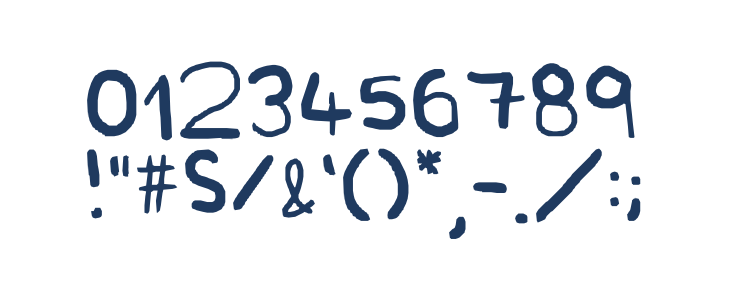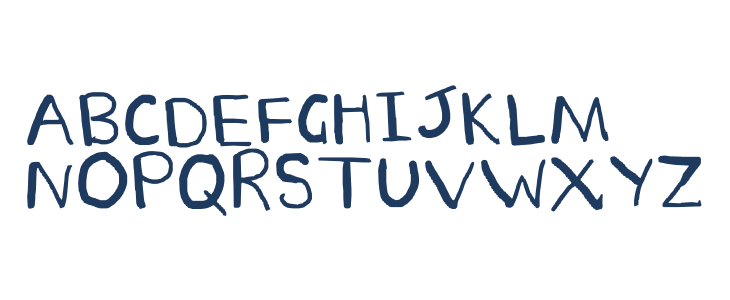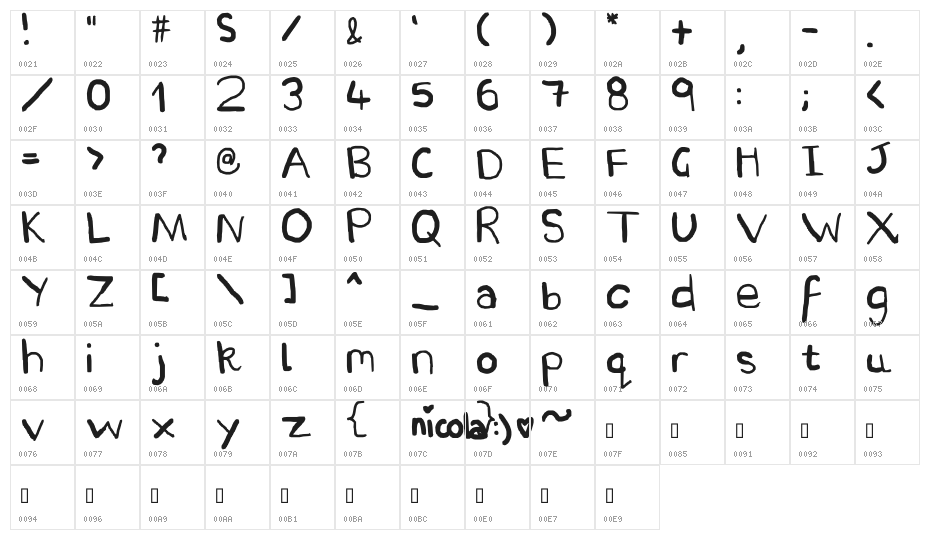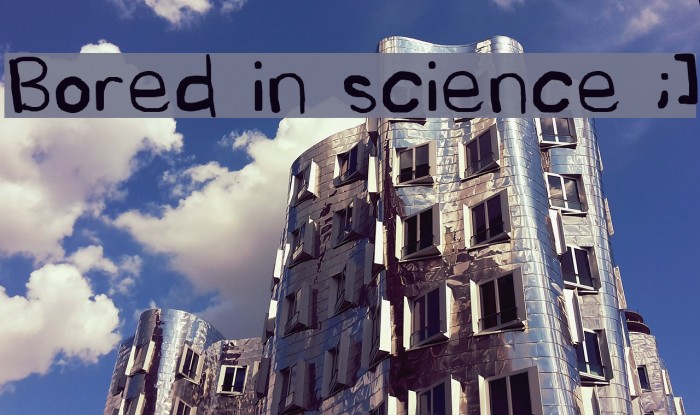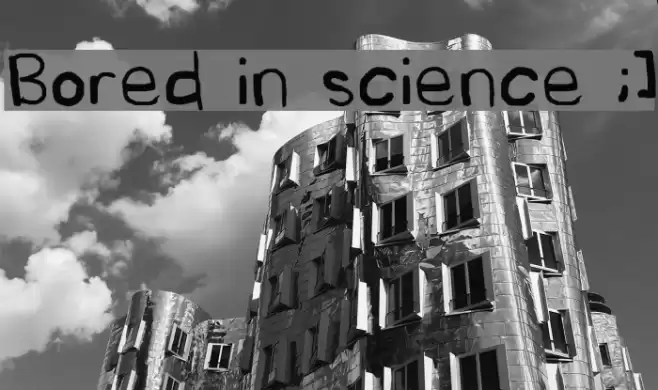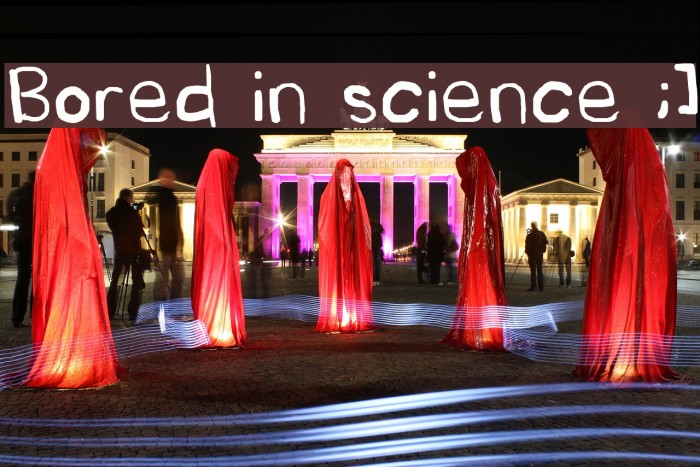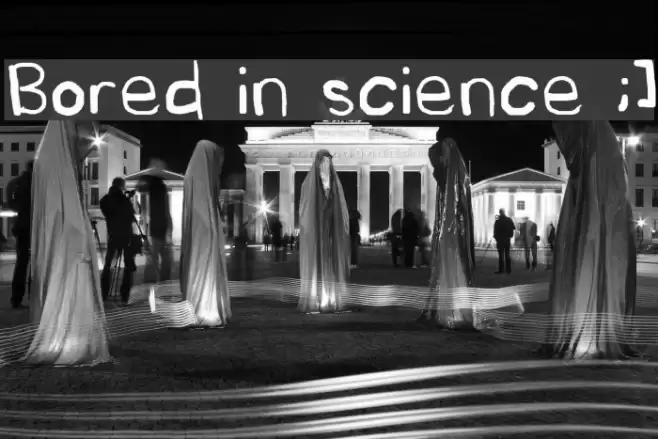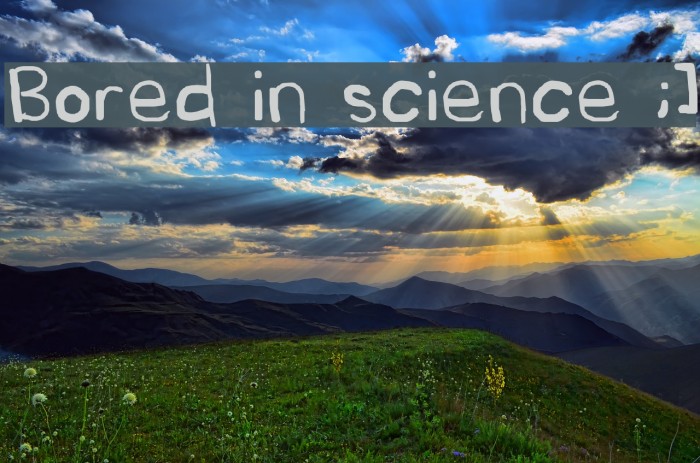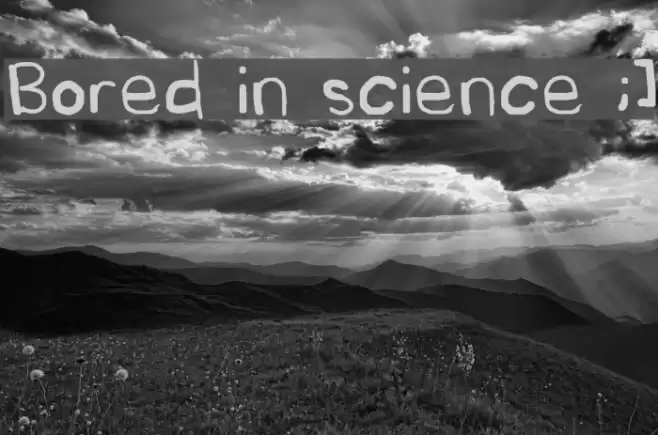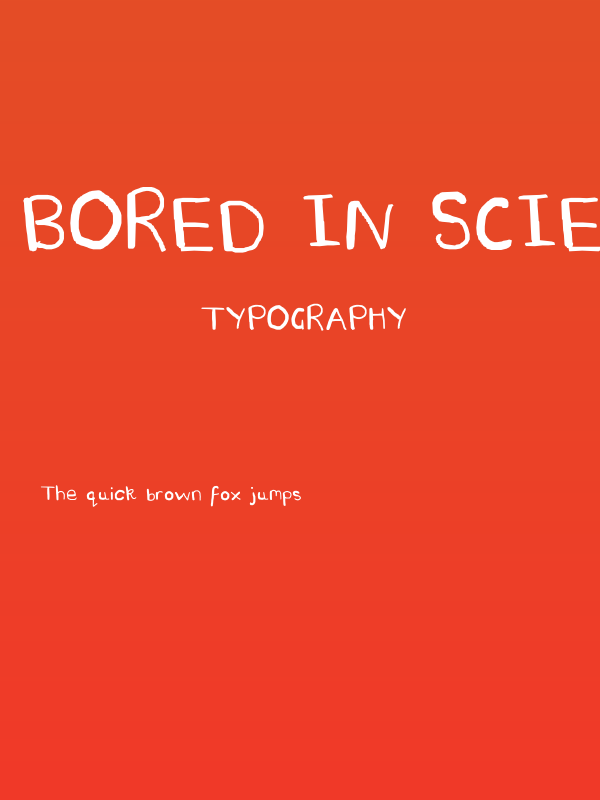
Bored in science ;] Font
Bored in science ;] Description
This playful and quirky font features a hand-drawn style with uneven lines and a casual appearance. The characters have a whimsical and informal feel, with varying stroke thicknesses that add to its charm. The uppercase letters are bold and slightly irregular, while the lowercase letters maintain a consistent yet relaxed form. Numbers and special characters follow the same playful design, making this font ideal for creative and fun projects. Its unique style is perfect for adding a personal touch to any design.
Proposed ProjectsGreat for children's books, playful branding, casual invitations, and creative posters.